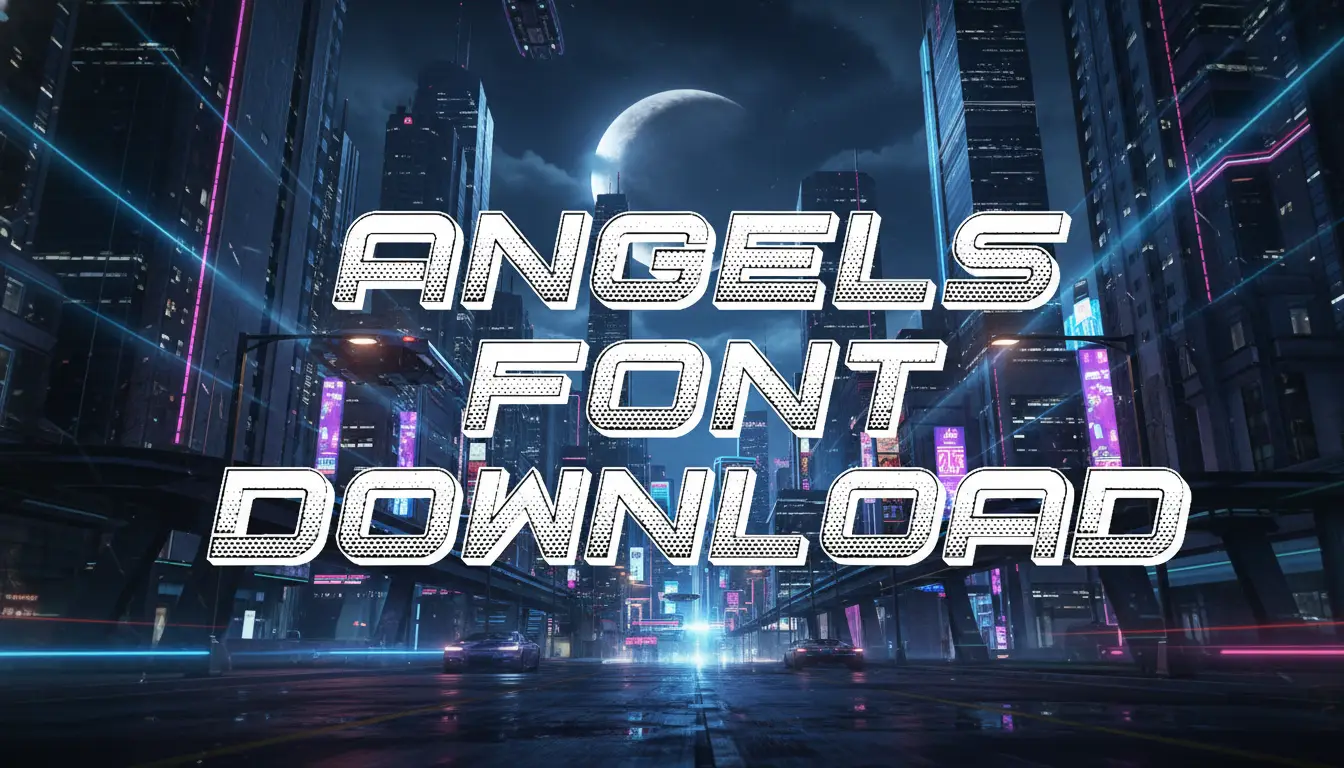
Angels Font
Angels is a fancy font made by Vladimir Nikolic. It's a decorative display font with plenty of personality, made to grab attention. It's a free download, and you can try it with your own text in the preview above first.
What You Can Type With Angels
With complete upper and lowercase letters and all ten digits, Angels is ready for real wording, not just a single headline. Common punctuation such as ! and ? is included as well. It doesn't include accented letters such as é or ñ, which makes it an English-only font.
Where Angels Works Best
Think of Angels for posters, logos and eye-catching headlines. Use it for one standout word or headline and let simpler fonts handle the rest.
Does Angels support accented letters?
No. Angels has no accented letters such as é, ñ or ü, so it's best for English text.